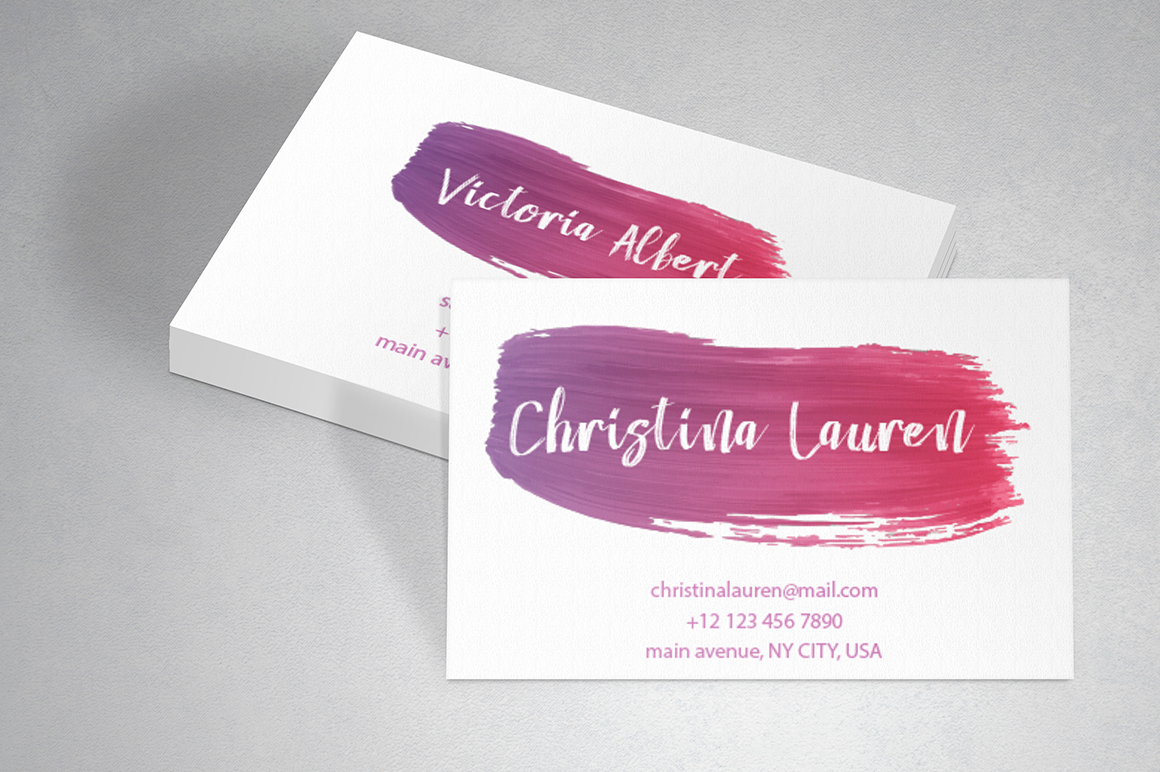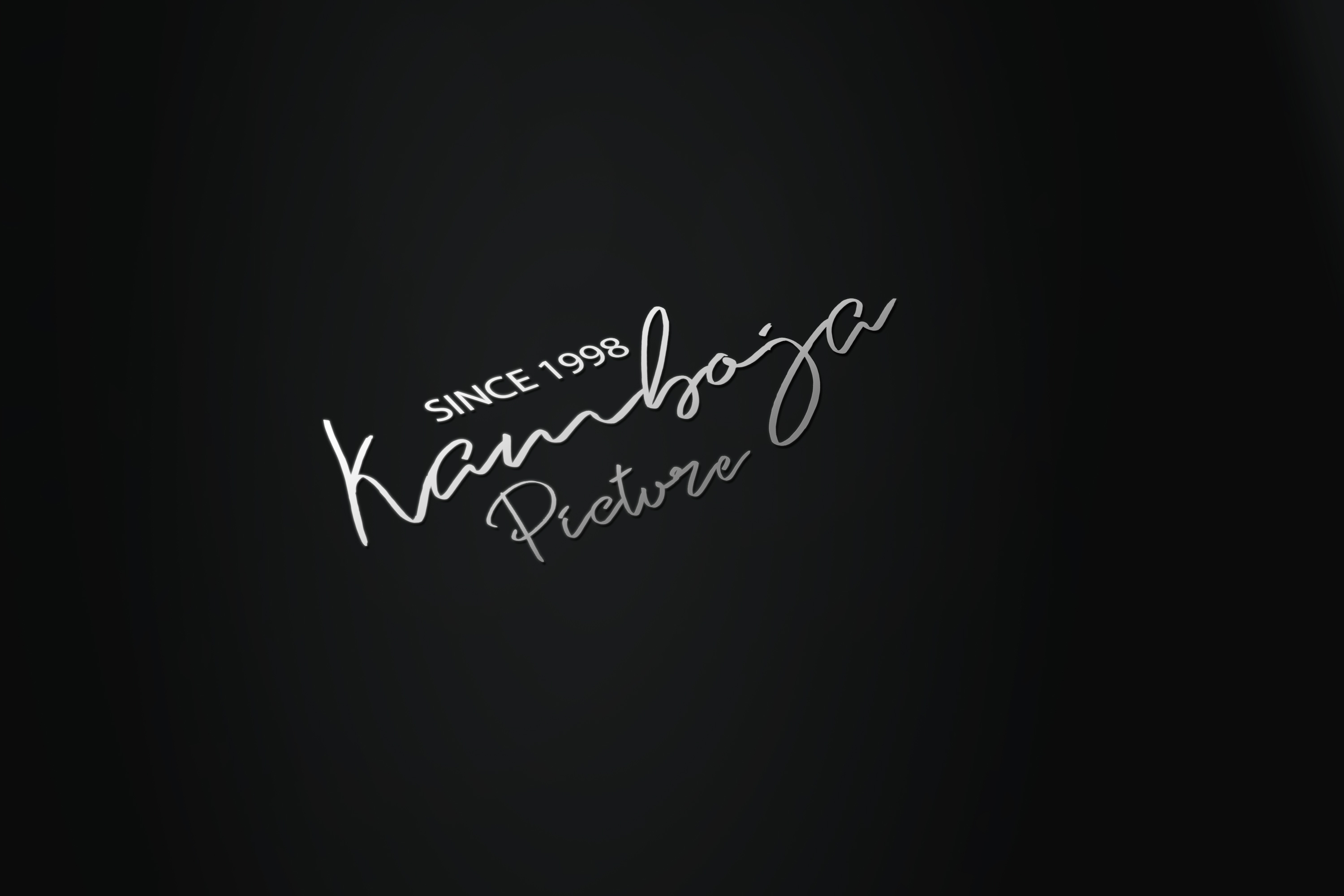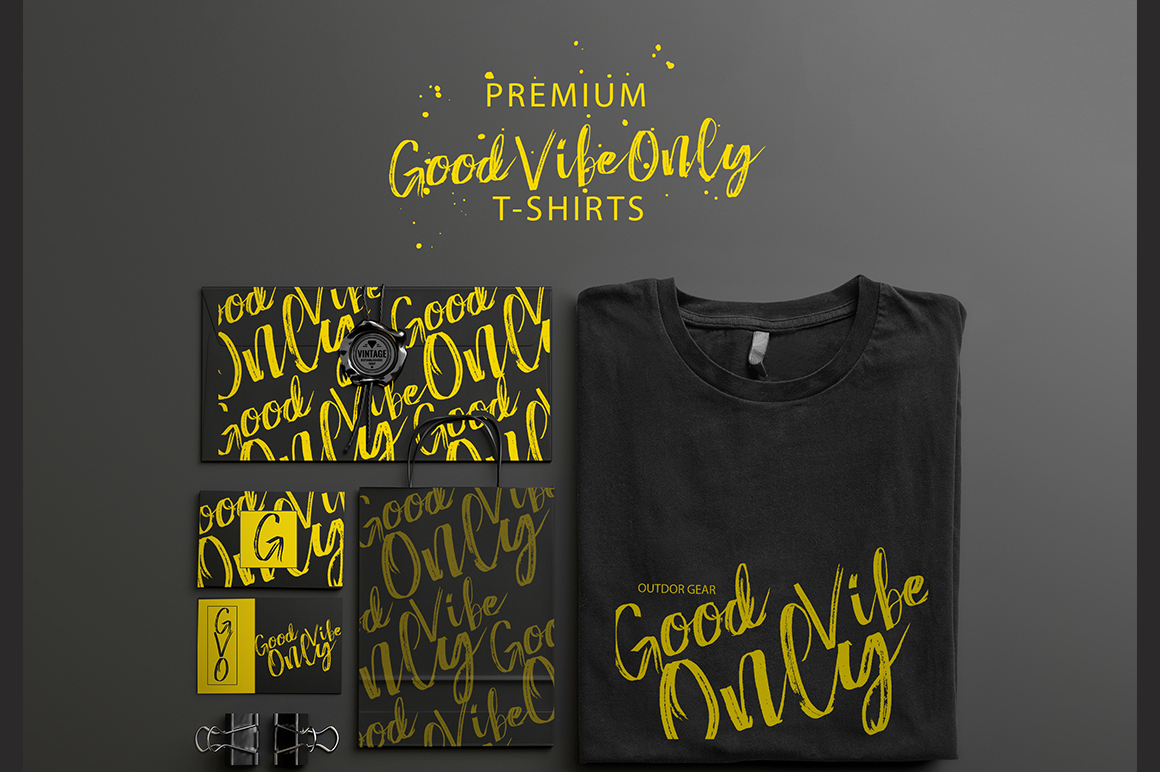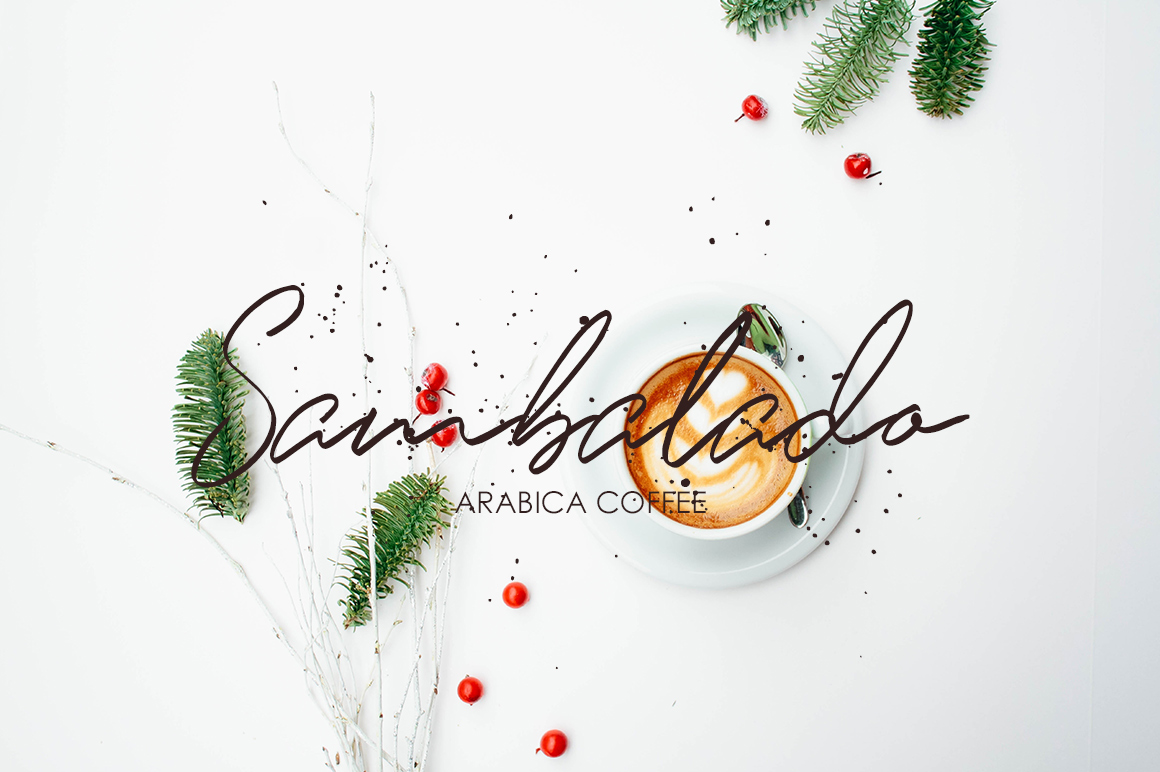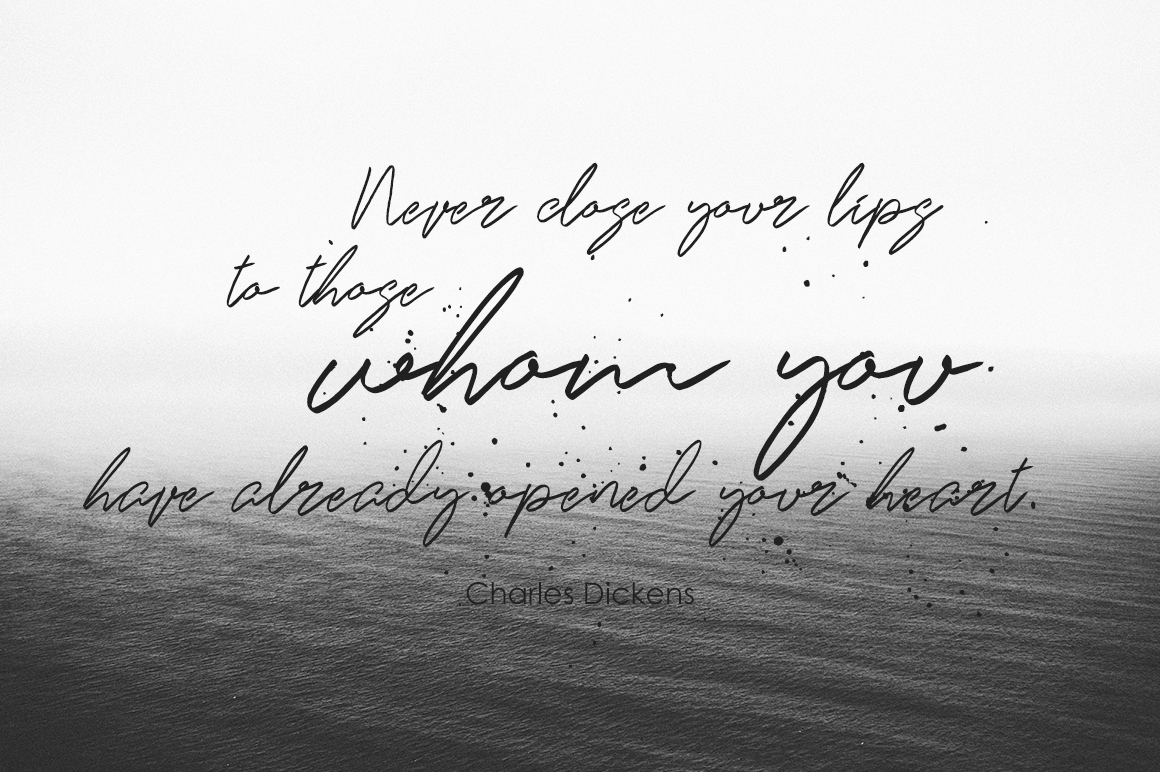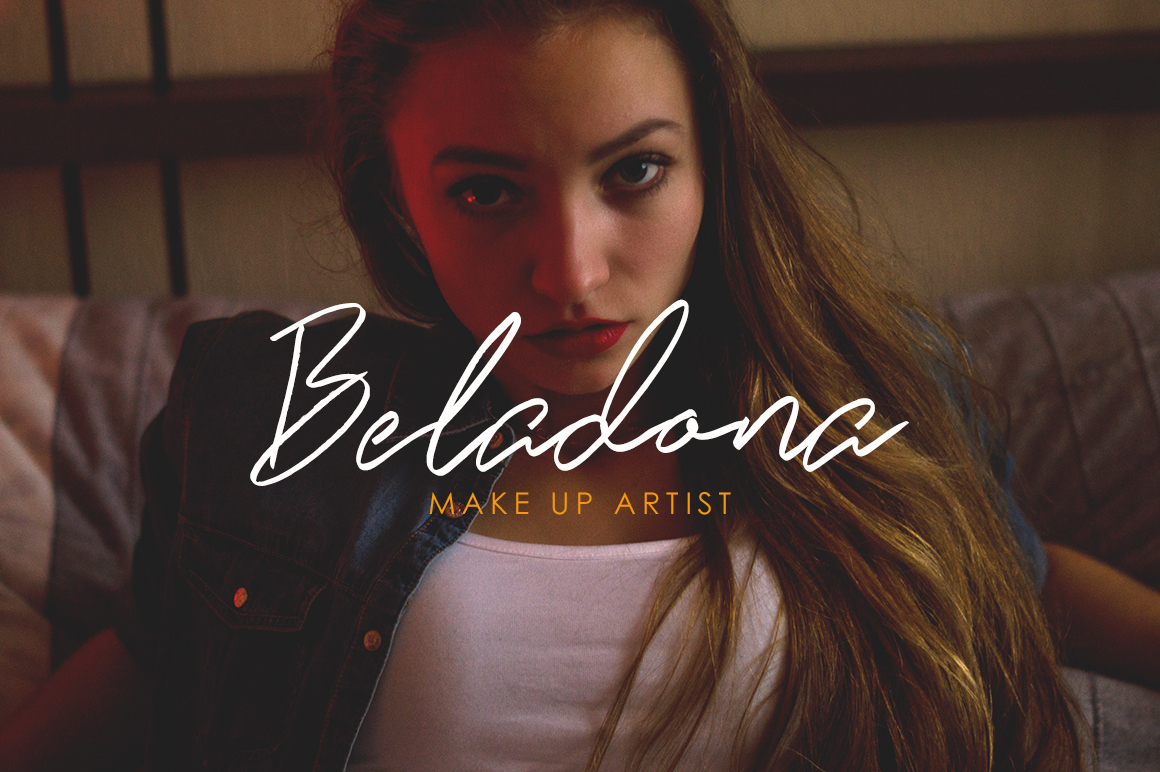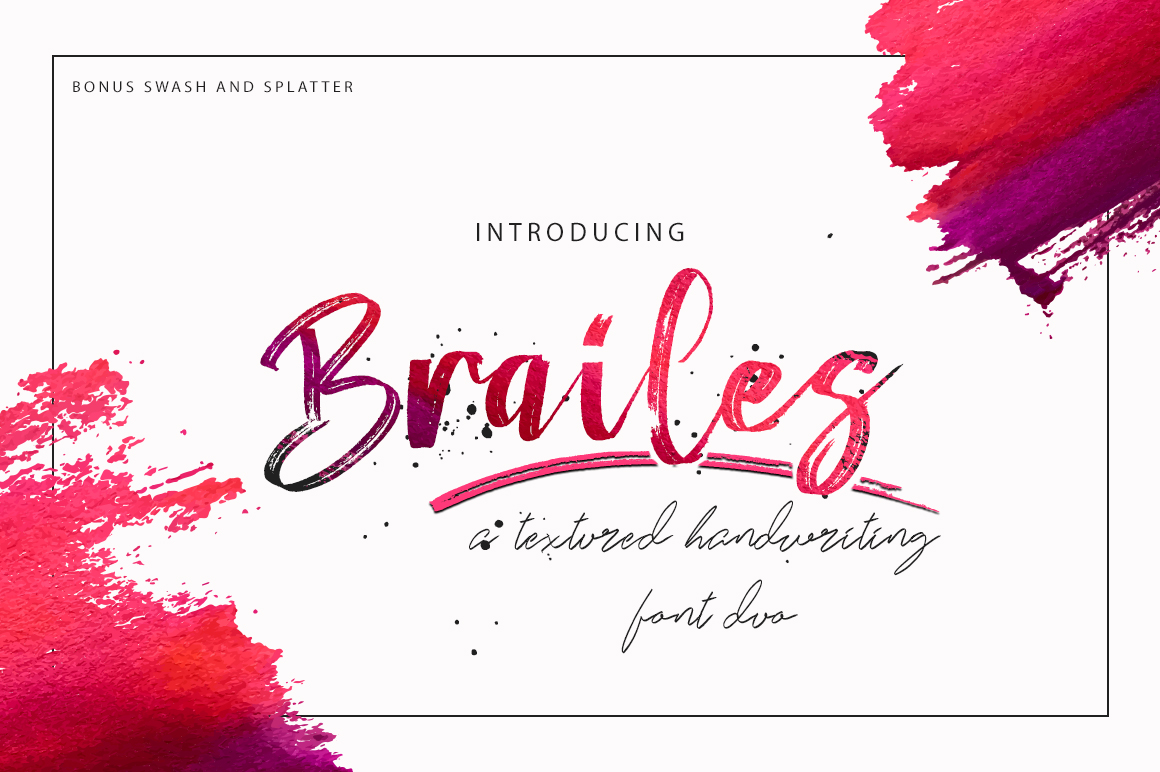
The Brailes Font: A Modern Brush Script for Craft & Corporate Projects
As a designer, I can attest that finding the right font can make or break a project. And that’s exactly what I want to share with you today – my experience with the Brailes Font, a modern brush script font pack that’s perfect for both crafty and corporate projects.
- ✨ The Brailes Font comes with a script, signature font, and bonus swashes & splashes, making it incredibly versatile.
- ✅ The font is beautifully crafted, with a modern and fresh feel that’s perfect for a wide range of projects.
- 🎨 The font is perfect for adding a personal touch to craft projects, such as handmade cards, invitations, and DIY crafts.
While I absolutely love the Brailes Font, there are a few minor quirks to be aware of: 🤔
- ⚠️ Some users may find the font a bit too ‘loopy’ or playful for very formal or corporate projects.
A Practical Guide to Using Brailes Font
- Experiment with the OpenType features, such as swashes and stylistic alternates, to add some personality to your text.
The Designer Inspiration Behind Brailes Font
The Brailes Font was designed with the modern crafter and creative professional in mind. The font’s creator wanted to create a font that was both playful and professional, with a unique personality that would stand out in any project. 💡
The design process involved experimenting with different brush script styles and techniques to create a font that was both elegant and expressive. The result is a font that’s perfect for a wide range of projects, from handmade crafts to corporate branding.
| Font Name | Brailes Font |
| Author | Pineungtype & Missinklab |
Q: Is the Brailes Font suitable for body text?
While the Brailes Font is beautiful, it’s best suited for headlines, titles, and short paragraphs of text. For body text, you may want to choose a more traditional font for readability. 📖